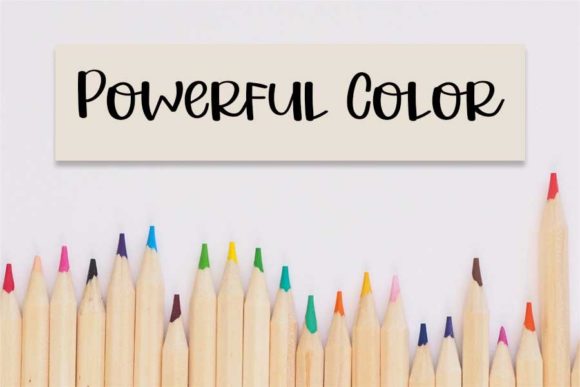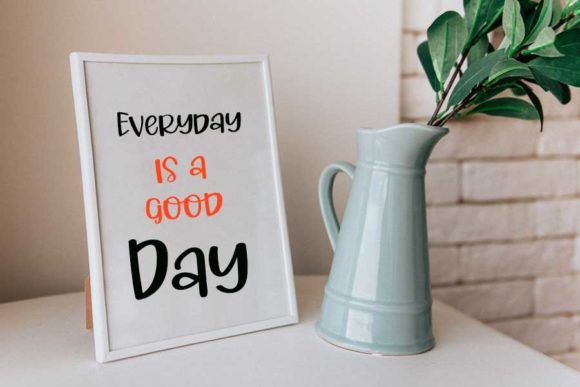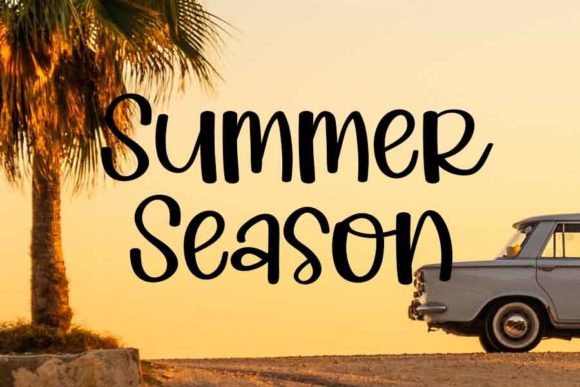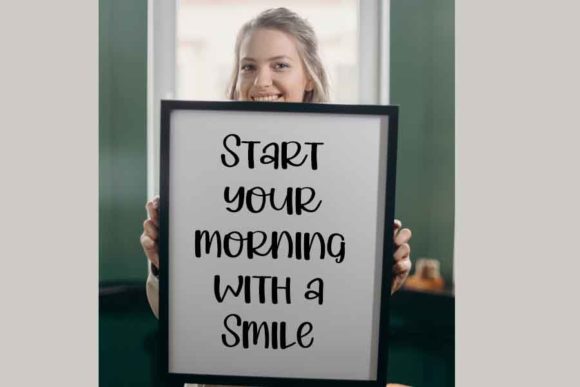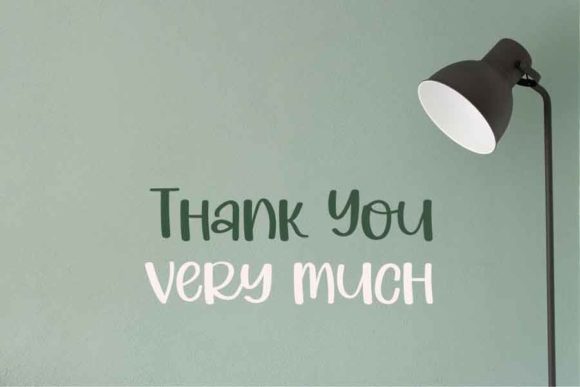
Unlock the Magic of Beautiful Summer Font
You know that moment when your creative idea suddenly comes to life, and you can’t wait to share it with the world? For designers, this feeling is all too familiar. It’s the spark of inspiration that drives us to create something truly special. And, for many of us, the right font can make all the difference.
Enter Beautiful Summer Font, a fun and relaxed handwritten font that’s about to become your new best friend. This incredibly versatile font is designed to elevate your designs to new heights, whether you’re working on a project for a client or simply experimenting with new ideas. With Beautiful Summer Font, you’ll be able to add a touch of personality and whimsy to your work, making it truly unforgettable.
Beautiful Summer Font Key Features
- Font Family: Beautiful Summer, a unique and elegant script font designed for creative projects.
- Unique Characteristics: Features a soft, hand-drawn feel with subtle flair and flair variations, perfect for adding a touch of elegance to your designs.
Beautiful Summer Font Review
Overall, I think the Beautiful Summer Font has a lot going for it, but it also has some limitations that might make it less suitable for certain projects. ✨
- Unique and Playful Style: The font has a very distinctive and whimsical feel to it, which is perfect for summer-themed projects or anything that needs a carefree vibe.
- Wide Character Set: The font includes a wide range of characters, including letters, numbers, and punctuation, which makes it easy to use in a variety of contexts.
- High-Quality Raster Images: The font comes with high-quality raster images, which ensures that it looks great on both desktop and mobile devices.
- Restricted Font Size Range: The font works best at medium to large sizes, but it can get blurry or difficult to read at smaller sizes. ⚠️
- Limited Script Options: While the font includes a wide range of characters, it’s a bit lacking in terms of script options, which might make it less suitable for certain projects.
- Not Ideal for Body Text: Due to its playful style and limited font size range, the Beautiful Summer Font is not ideal for use as body text, but it’s perfect for headings or titles.
In conclusion, the Beautiful Summer Font is a great choice for projects that need a unique and playful style. While it has some limitations, it’s still a great option for headings, titles, and other decorative elements. Just be aware of its limitations and use it accordingly.
The Beautiful Summer Font is perfect for:
- Summer-themed designs and projects.
- Travel and tourism marketing.
Tips for Getting the Most Out of the Beautiful Summer Font
To get the most out of the Beautiful Summer Font, try:
- Pairing it with bright and bold colors.
- Using it in combination with other summer-themed fonts.
- Experimenting with different font sizes and styles.